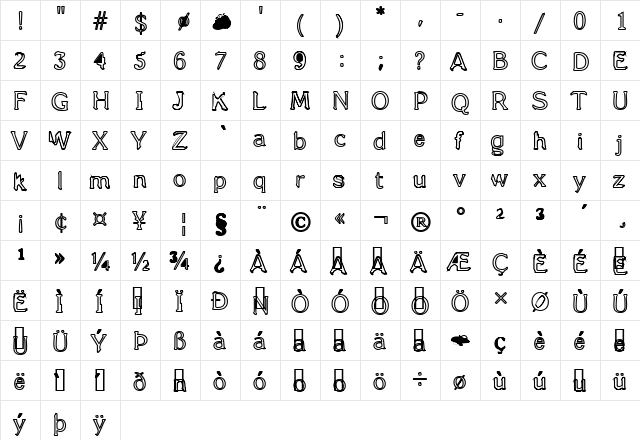
Fifteen Stories Regular
Design Context for Fifteen Stories Typeface
Fifteen Stories is a composed and adaptable typeface that performs quietly and consistently across a wide range of design contexts.